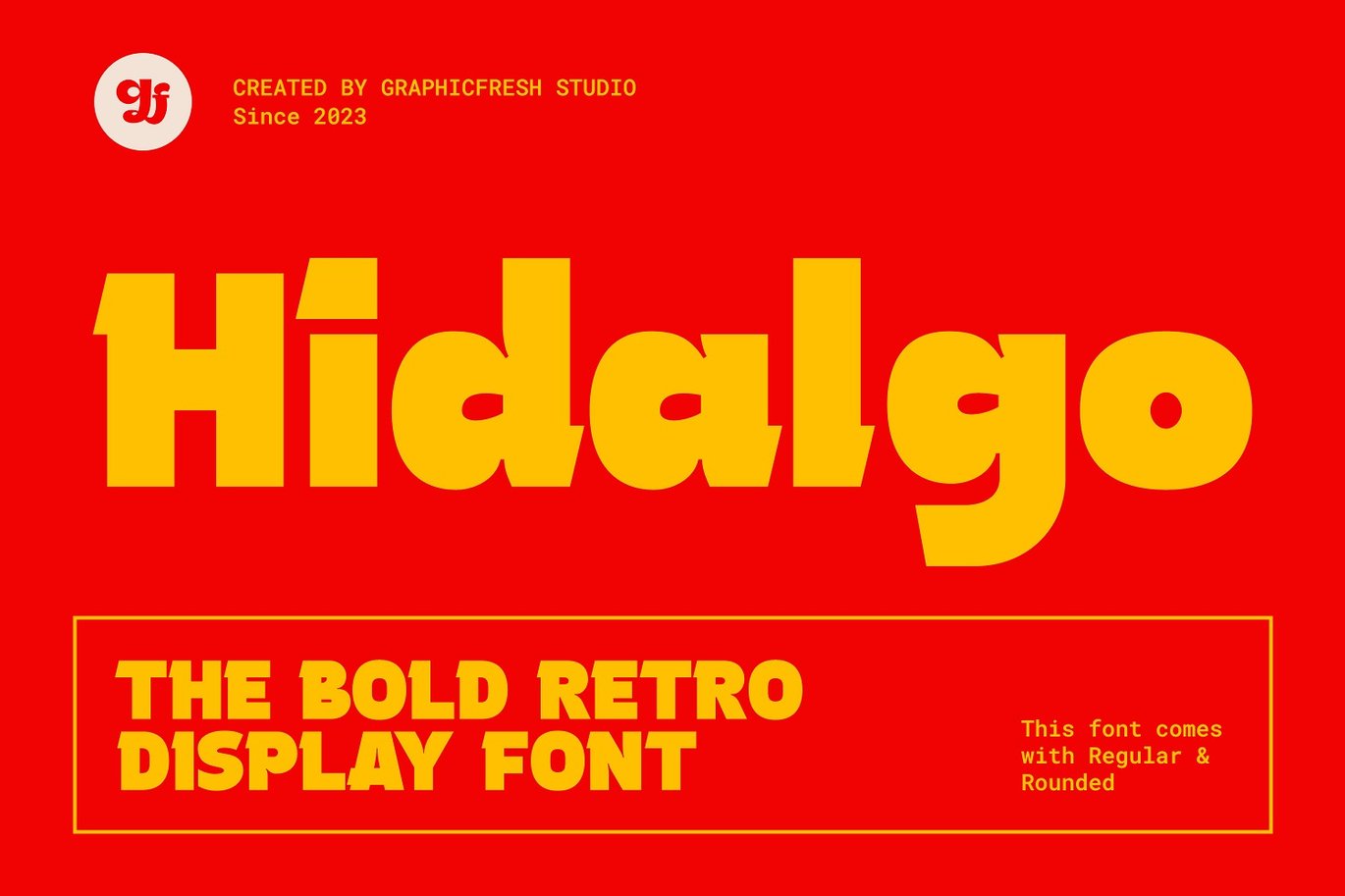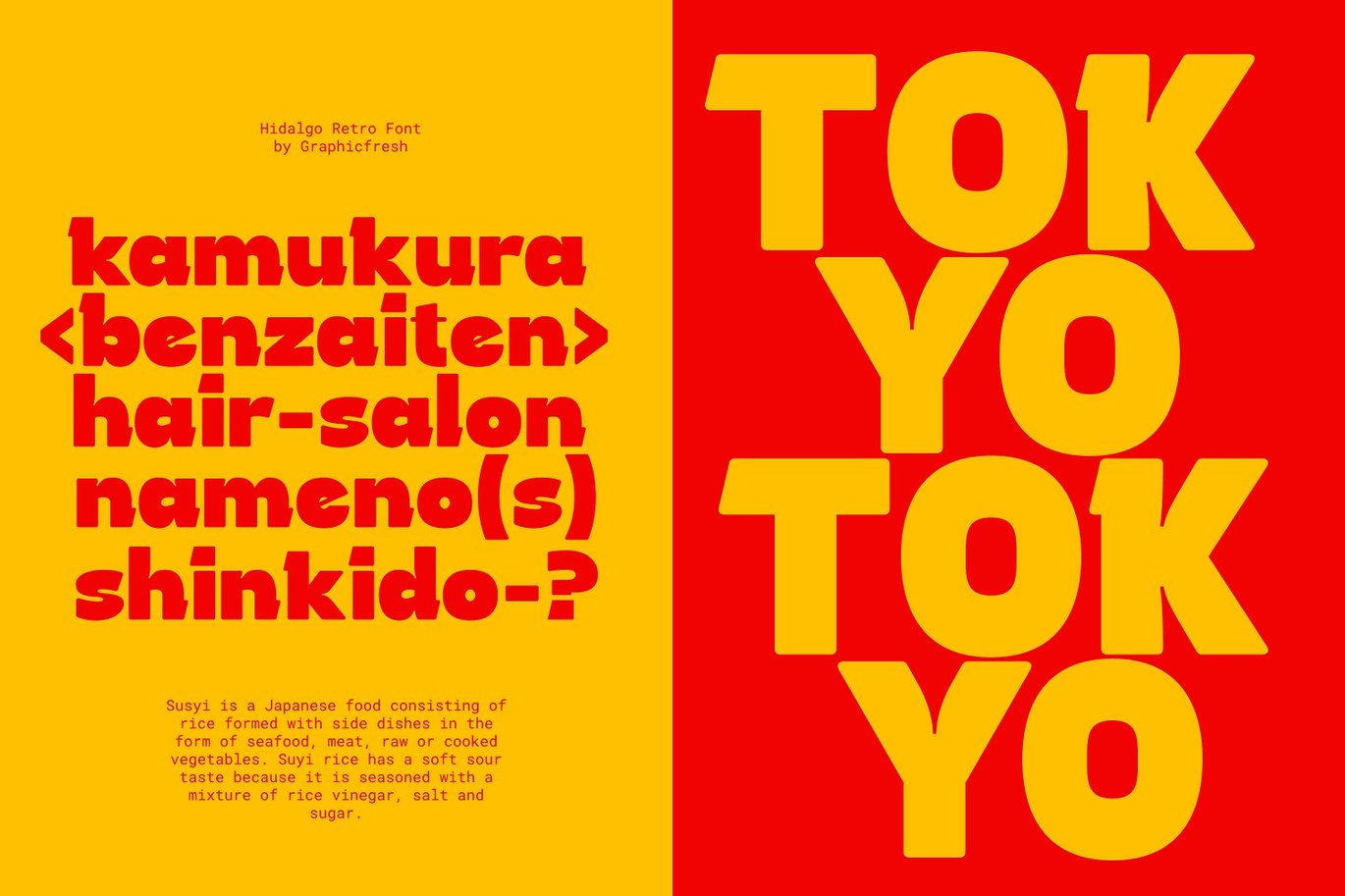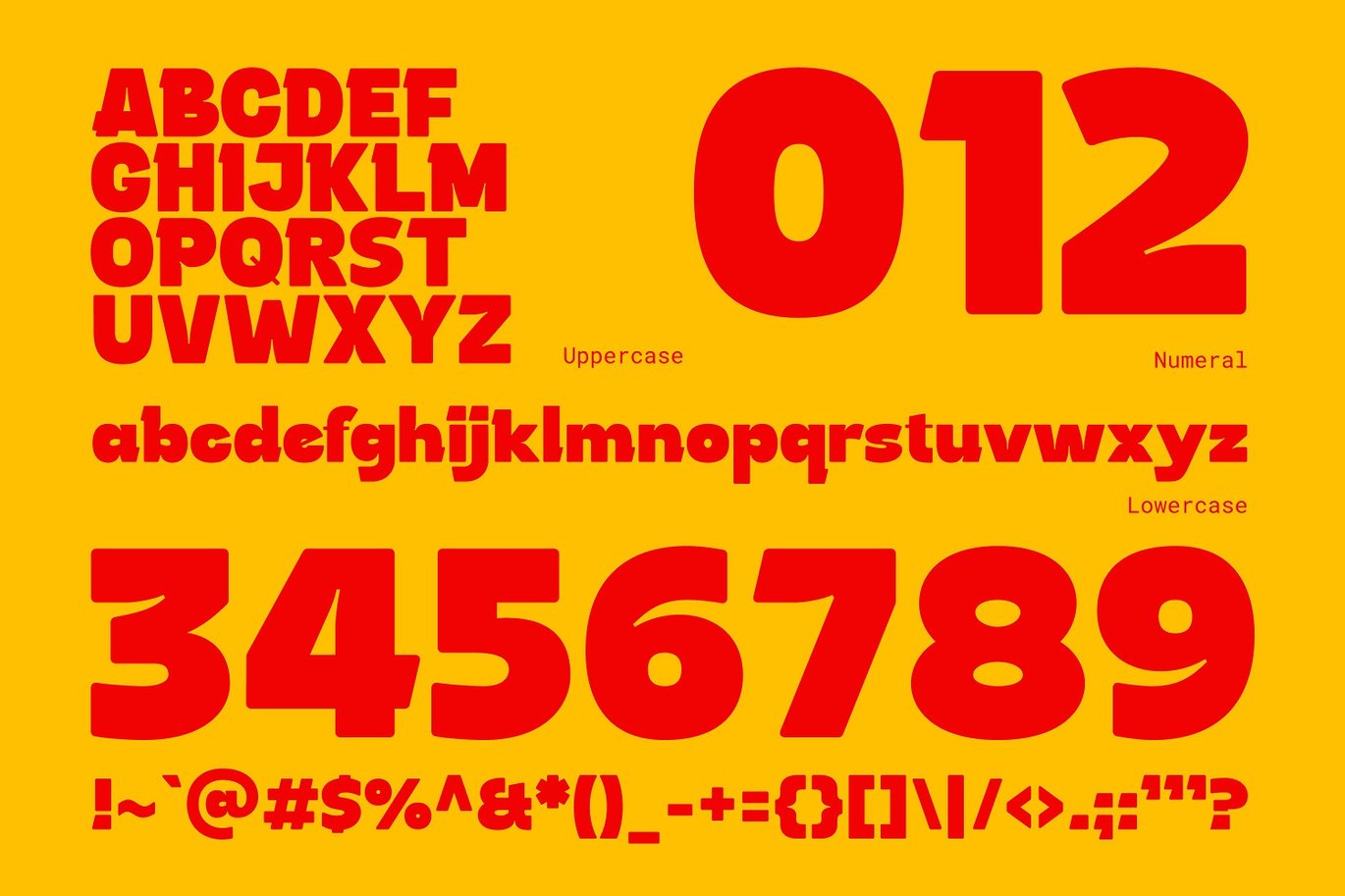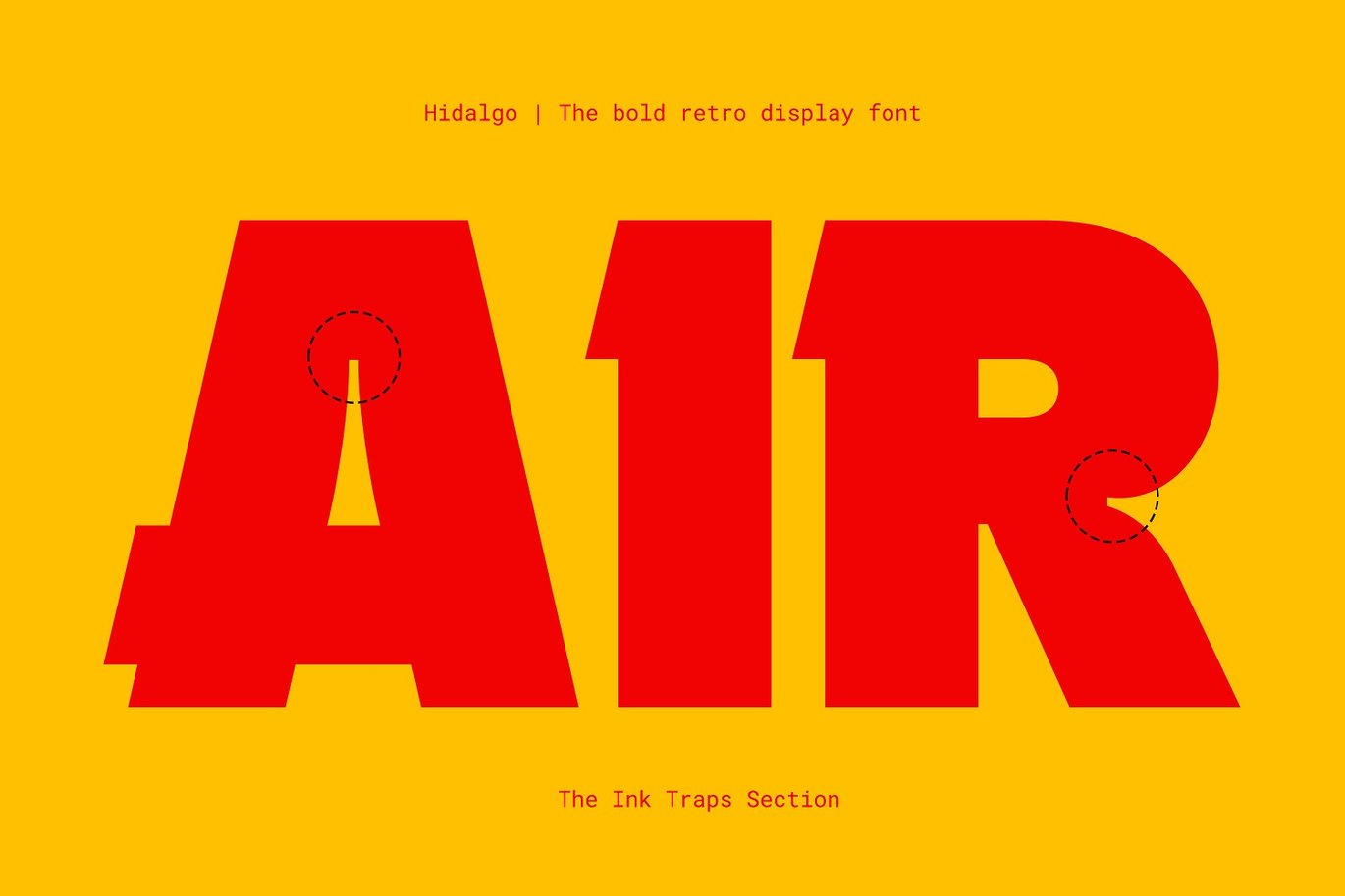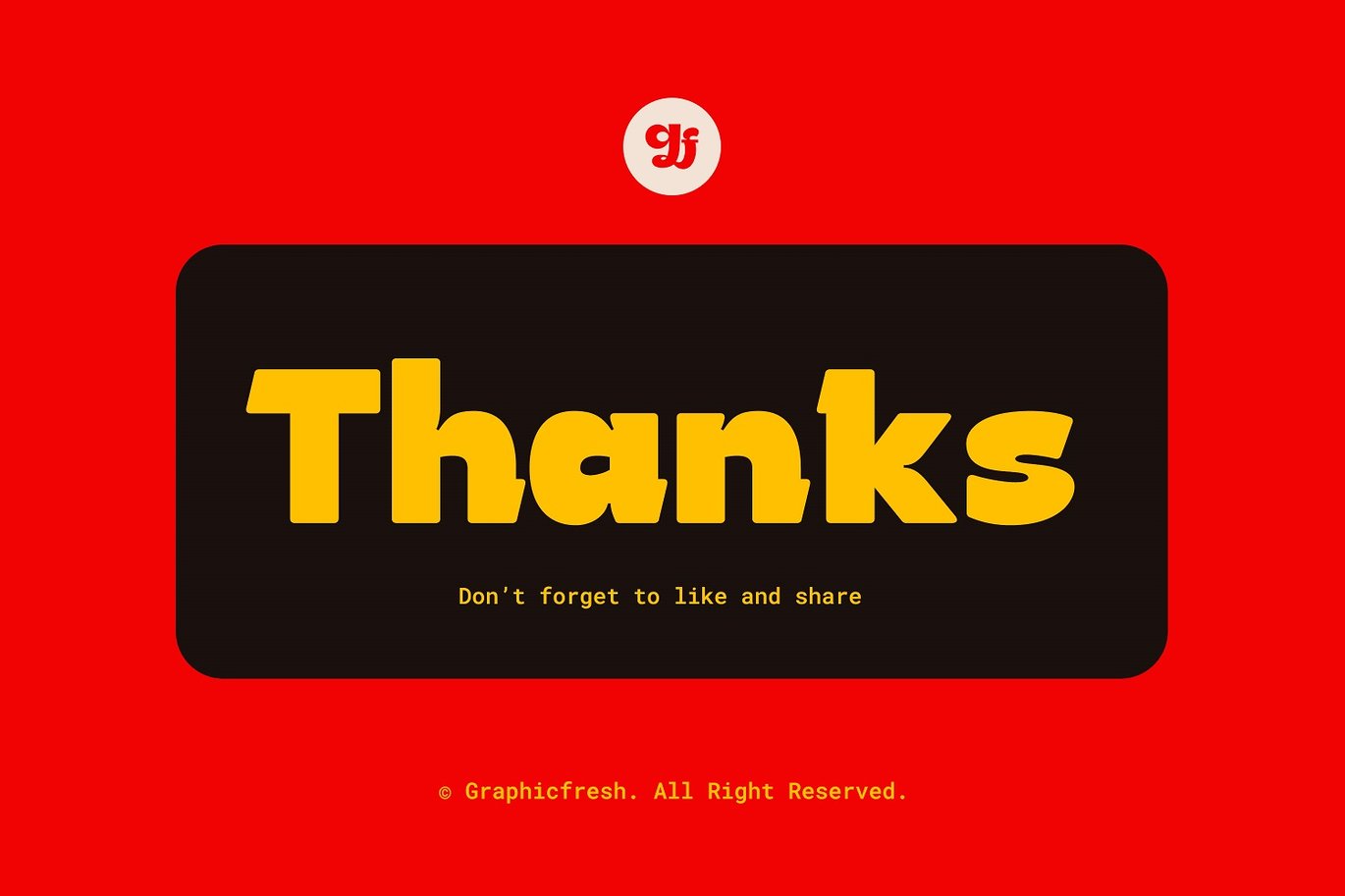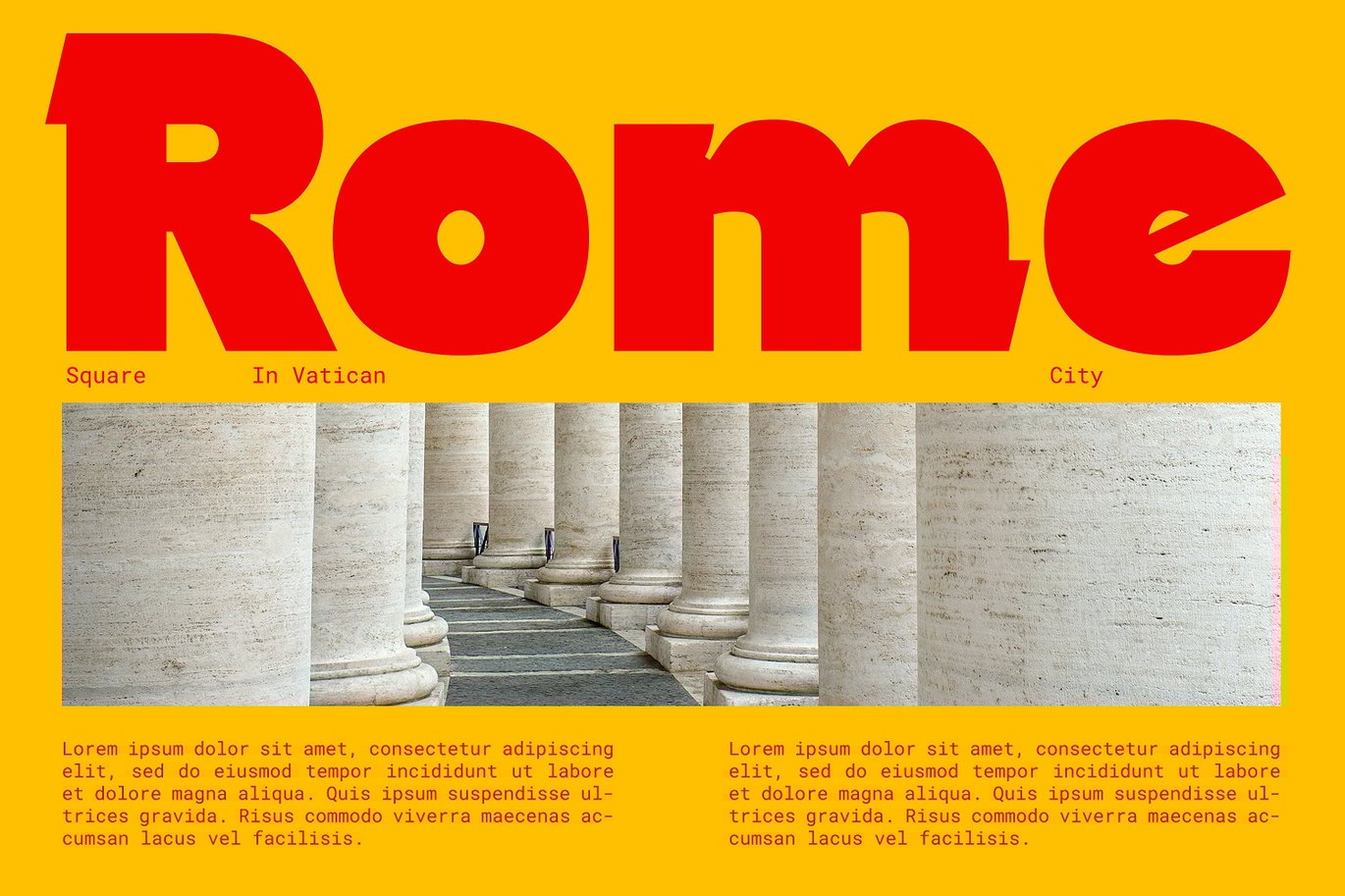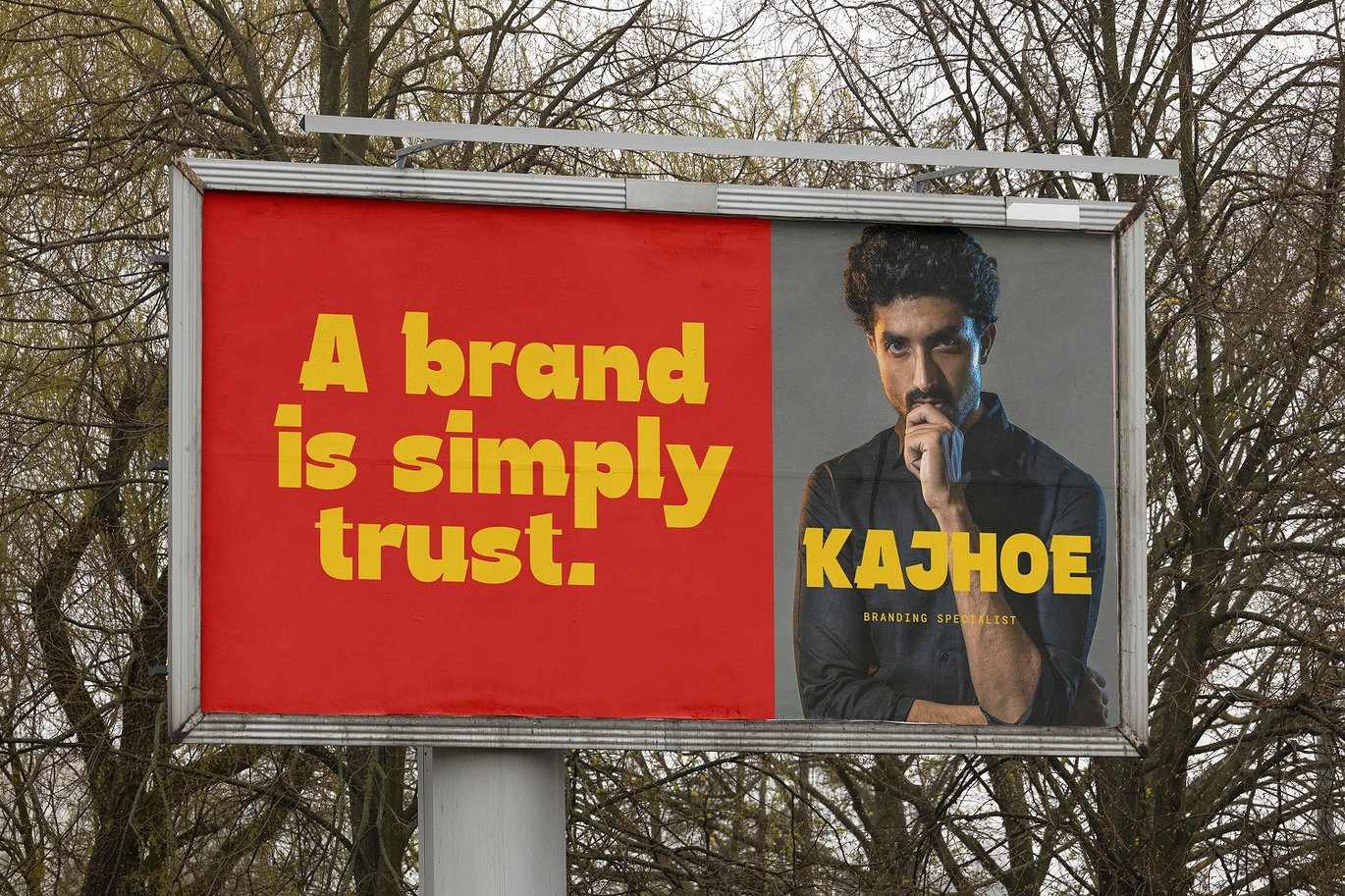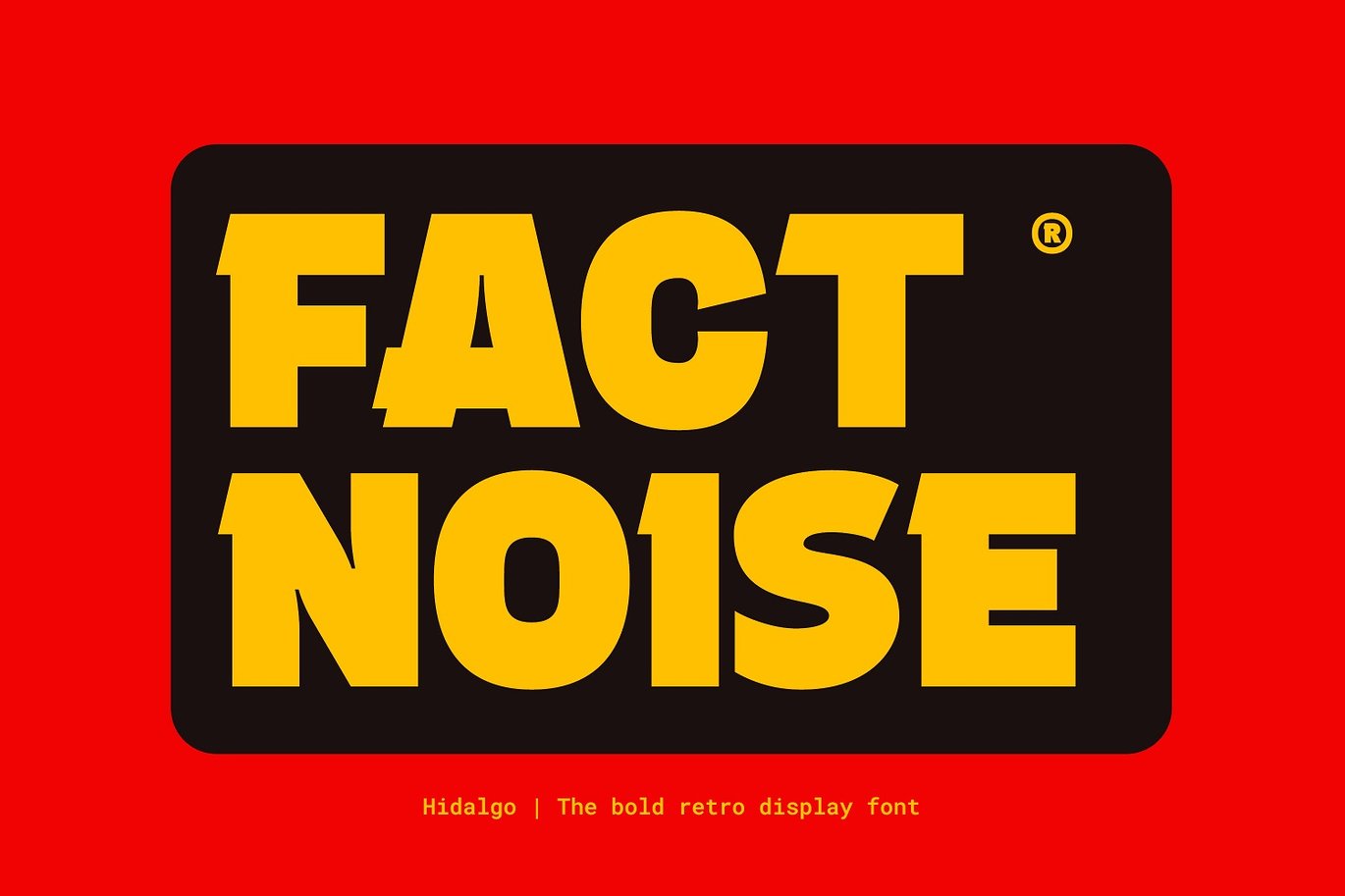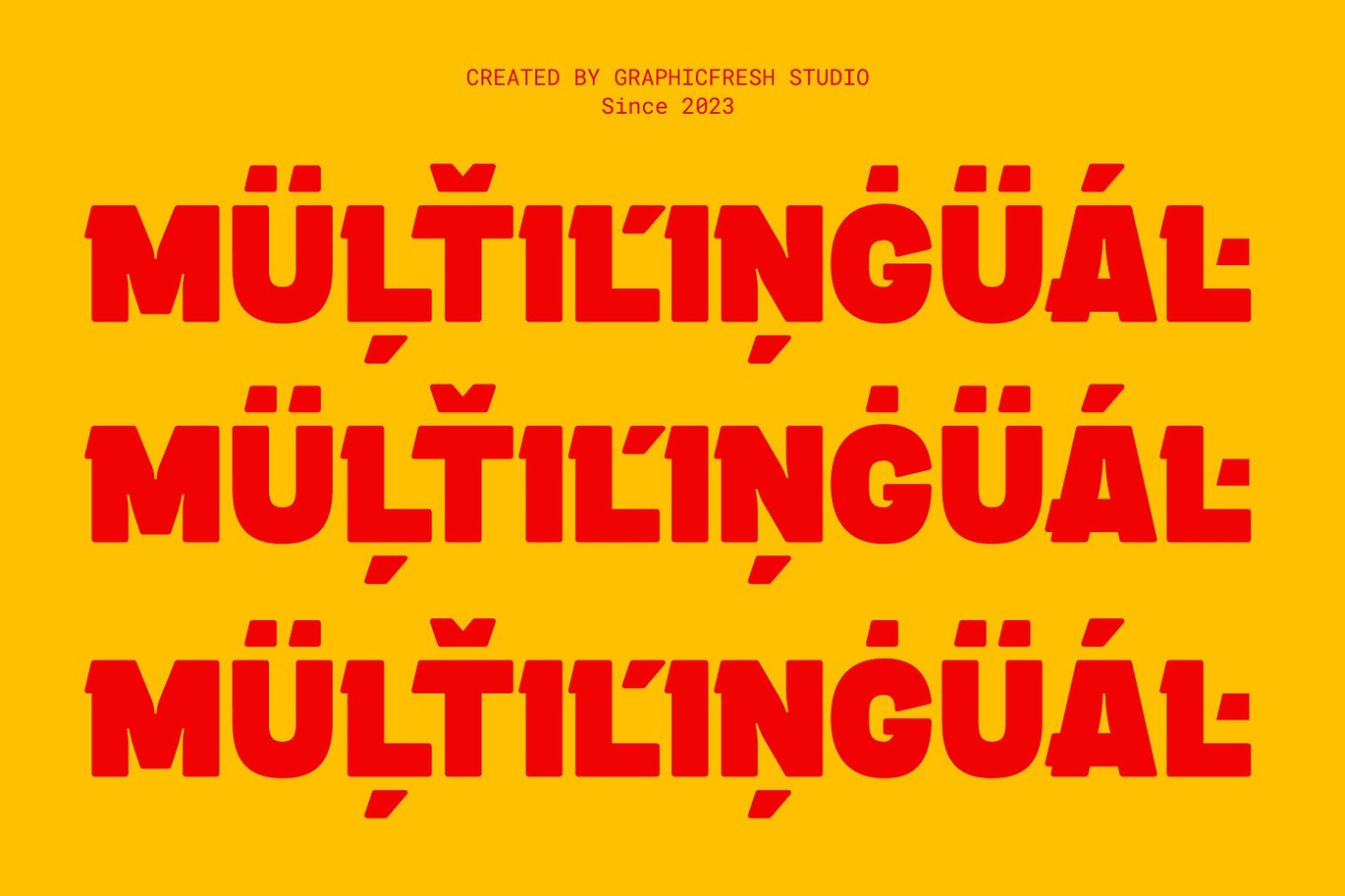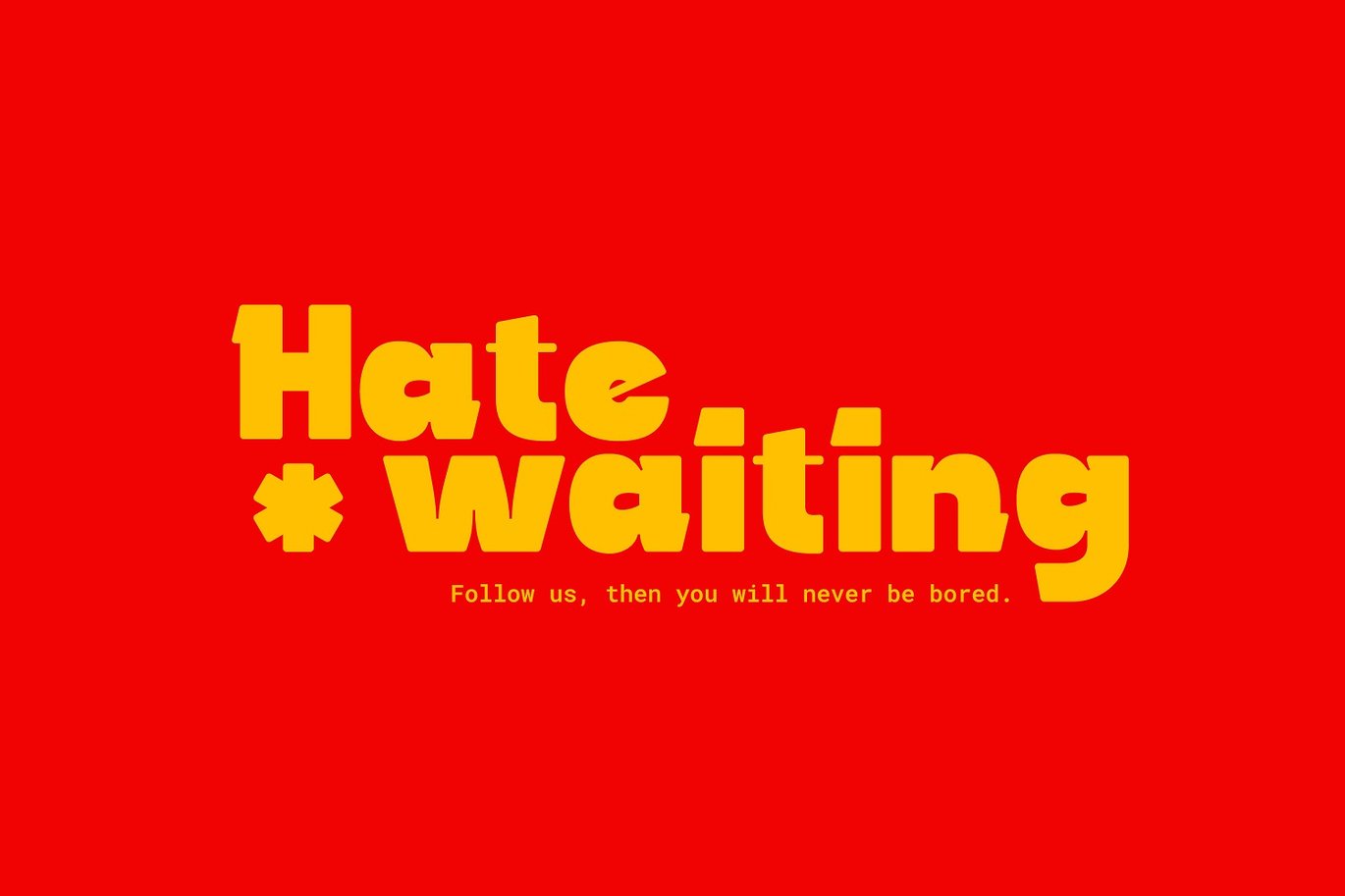
Hidalgo – The Retro Display Font
Introducing our bold and versatile font collection, perfect for creating retro, classic, and vintage designs inspired by the iconic styles of the 70s, 80s, and 90s. Whether you’re working on a poster, magazine layout, or logo for your brand, this font adds a touch of modern elegance to any creative project.
Transform your designs into stunning works of art with our bold and vintage-inspired font, capturing the essence of the 70s, 80s, and 90s. From logos to branding and magazine layouts to posters, this modern and elegant typeface is the perfect choice for creating eye-catching visuals that leave a lasting impression.